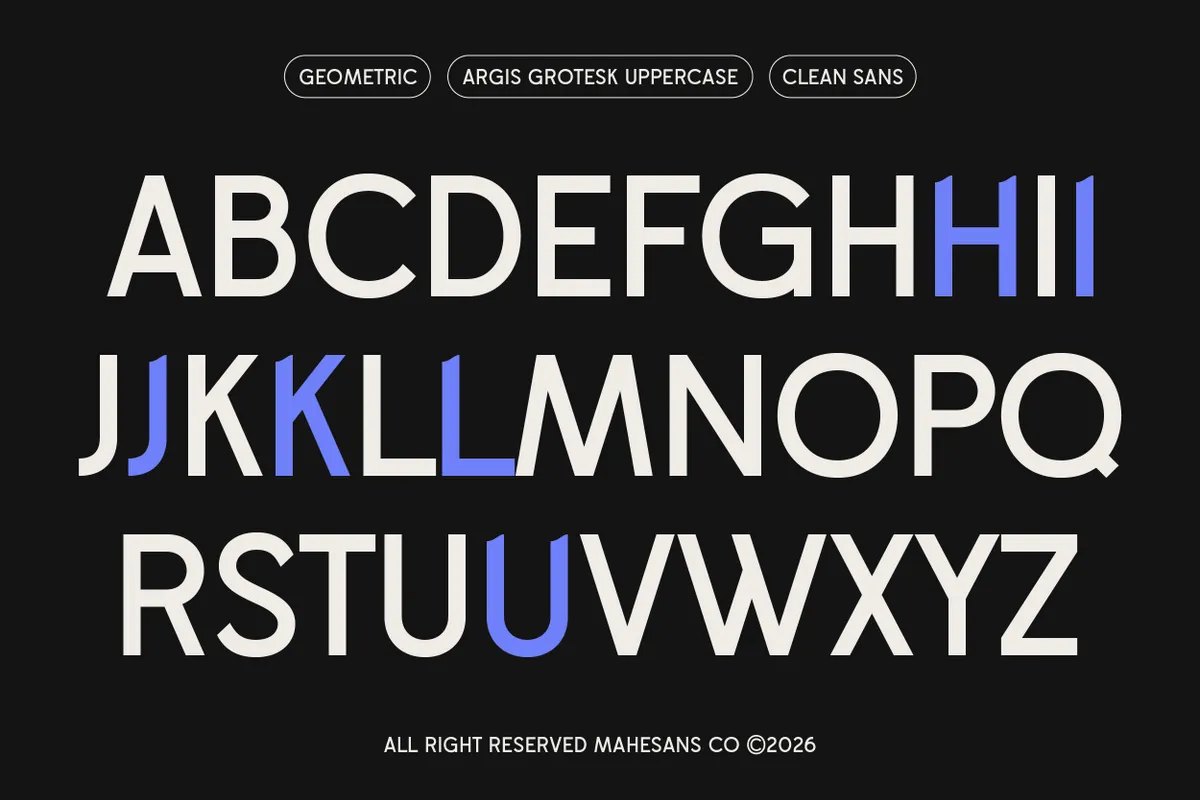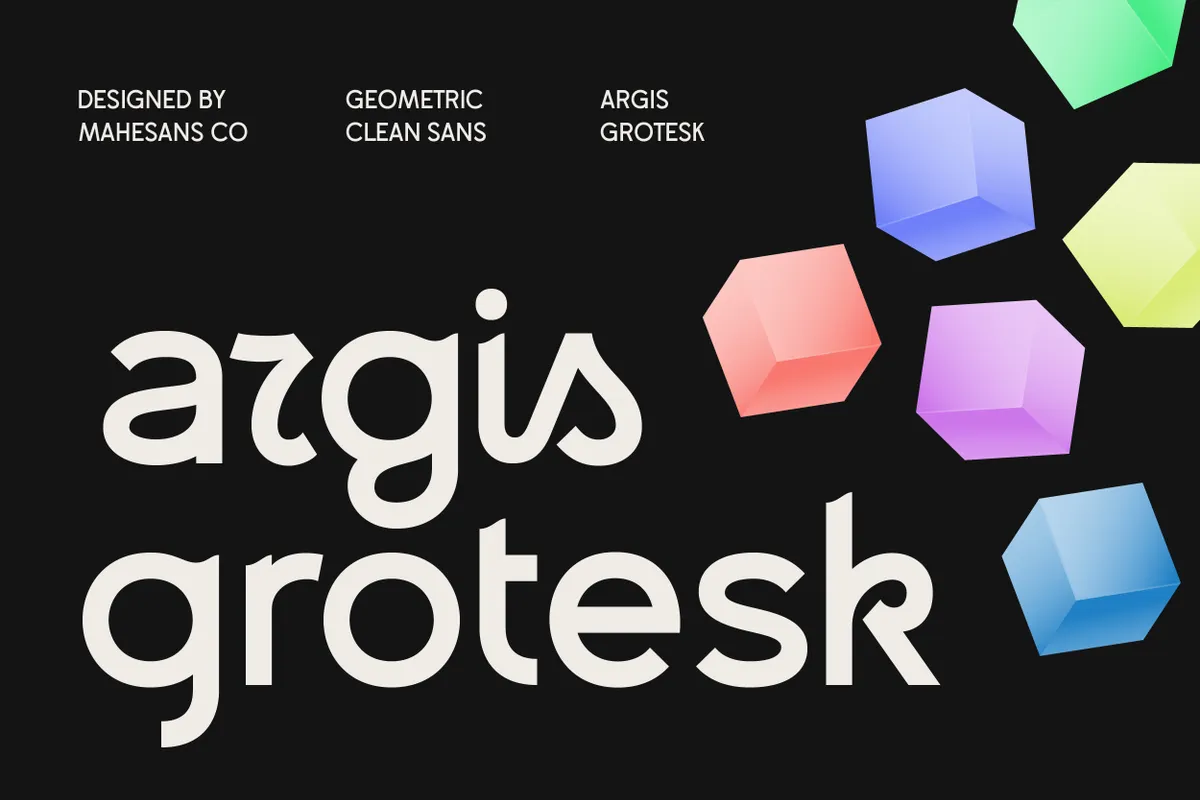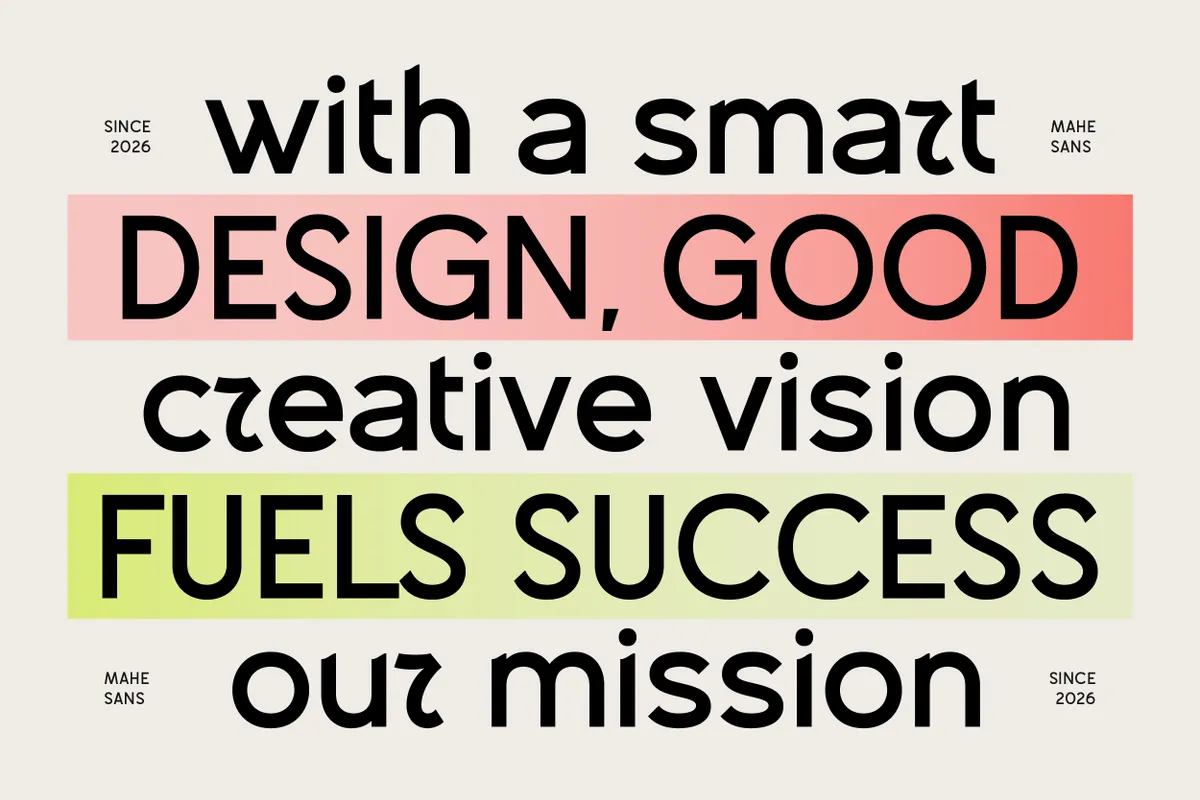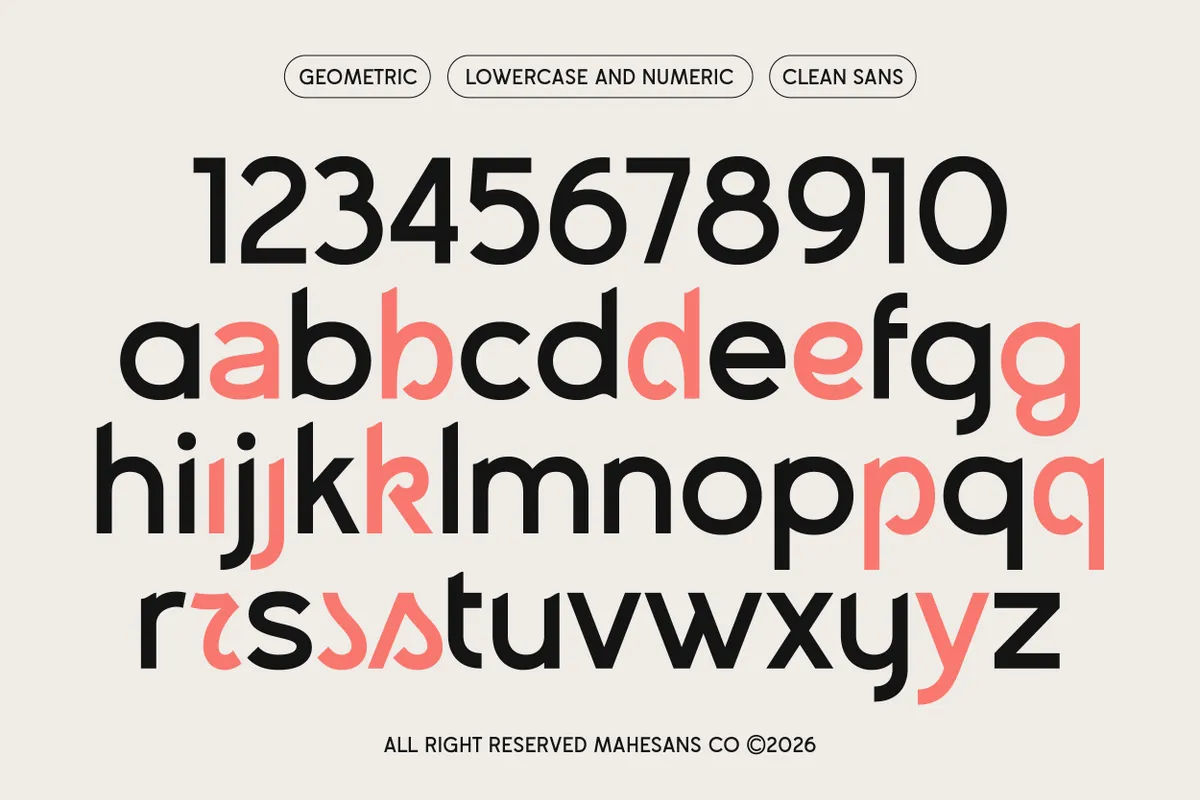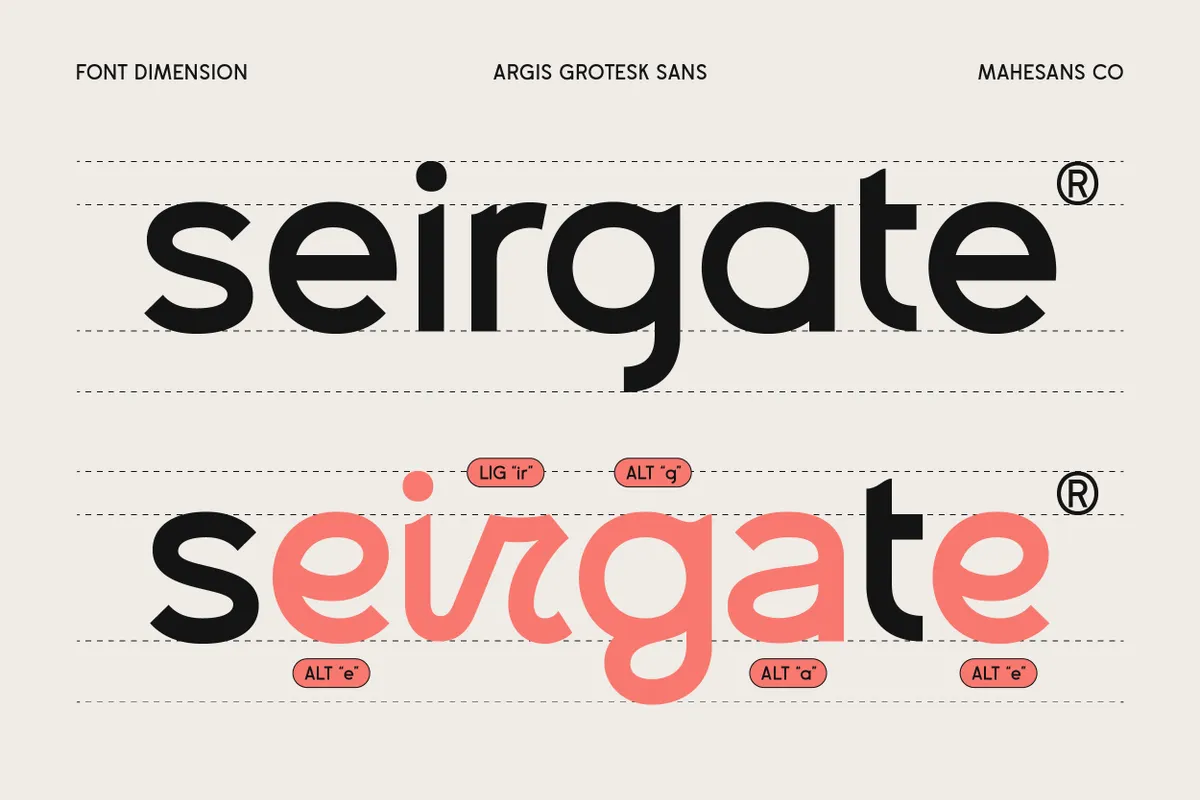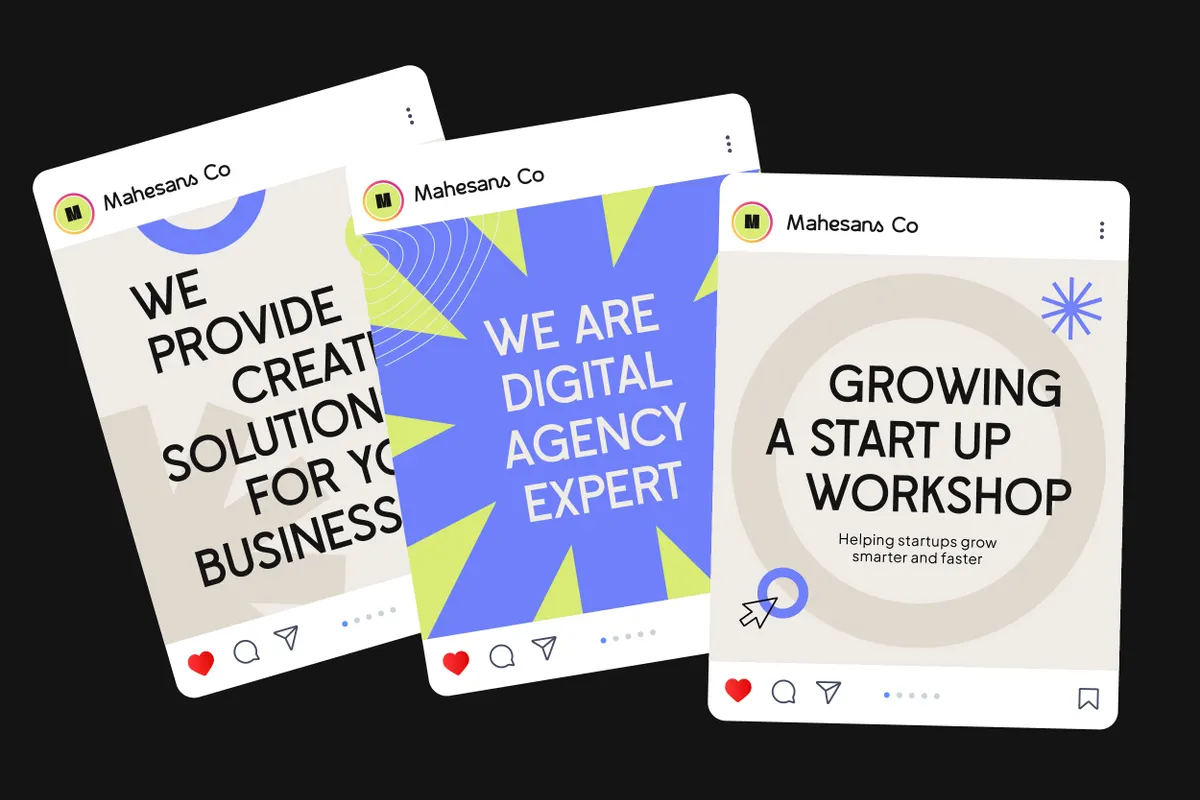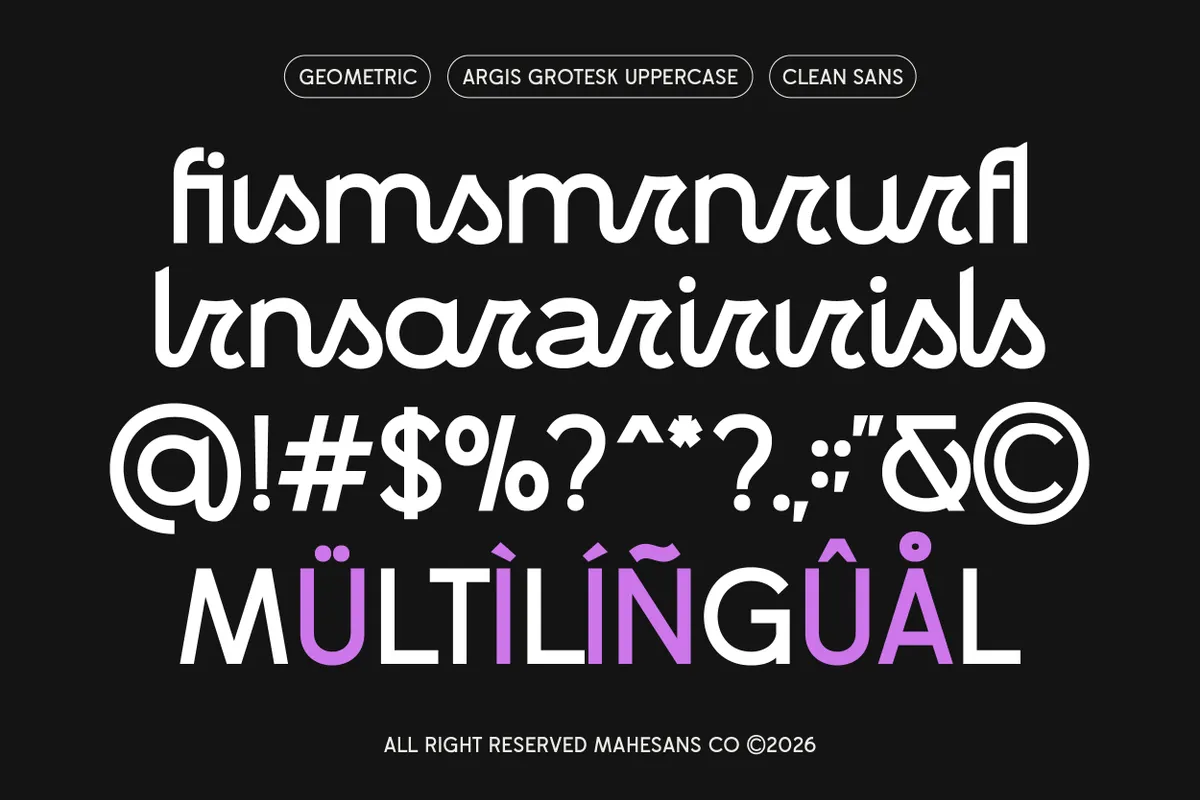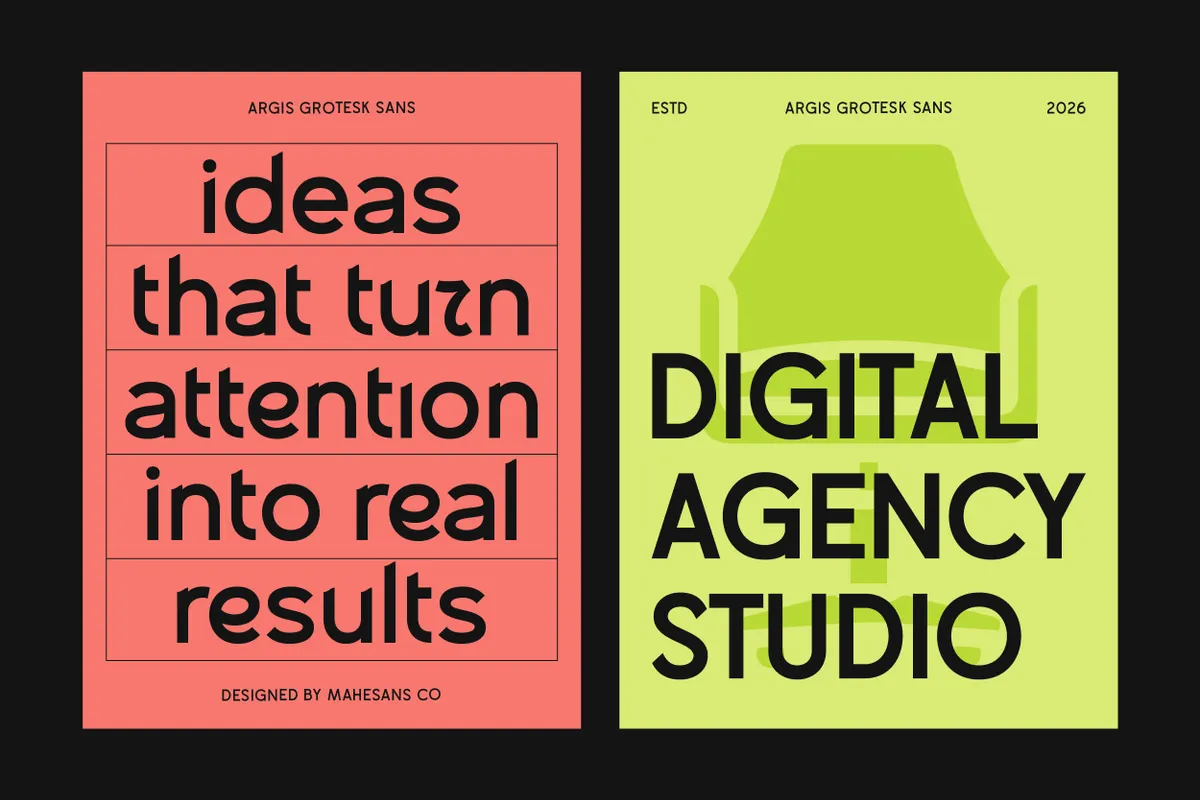
Argis Grotesk - Playful Geometric Sans
Argis
Argis is a single-weight sans serif font with a second personality stored in its alternates: swap them in and letters such as a, g, k, r and y take on looser, curled shapes. Set plain, it is a tidy geometric grotesk; set with alternates, the same word turns playful.
Twenty-three alternates and ten lowercase ligatures on r and s pairs — ar, ir, nr, ns — let a wordmark move from corporate to loose without changing typeface. Use it for startup branding, agency decks, social campaign posts, app onboarding screens, event posters, snack and drink packaging, and workshop flyers.
- one style: Regular;
- uppercase & lowercase;
- numerals, punctuation & symbols;
- 23 stylistic alternates;
- 10 discretionary ligatures, plus standard fi and fl;
- 244 glyphs.